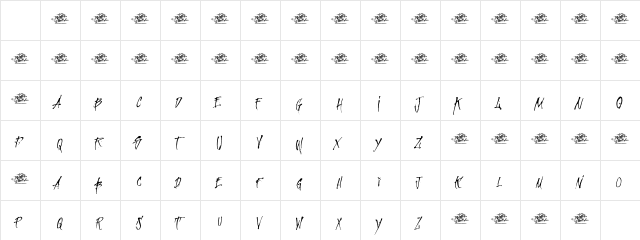
Complete MCF Revolution ink Regular glyph index. Displaying only characters natively supported by MCF Revolution ink Regular font.
MCF Revolution ink is a composed and adaptable typeface that performs quietly and consistently across a wide range of design contexts.
Who designed the MCF Revolution ink Regular font?
This font was published by Mister Chek (Andrey Chernevich). Check the technical specs section for copyright and designer details.